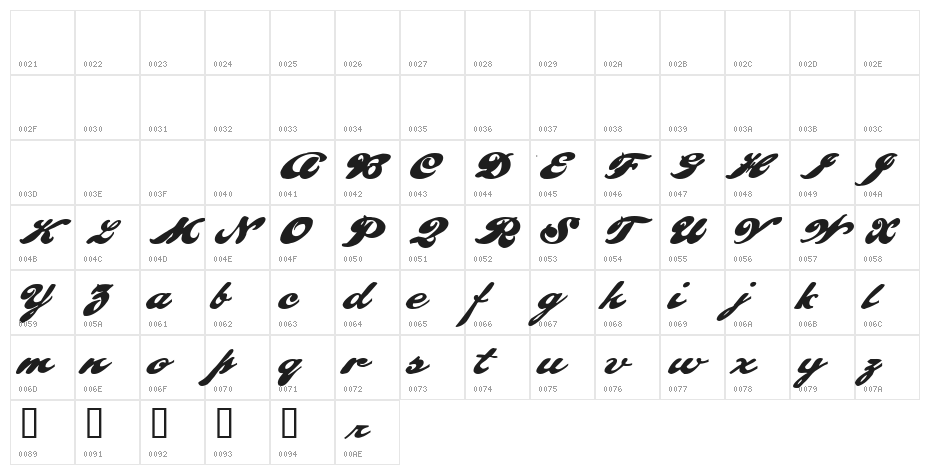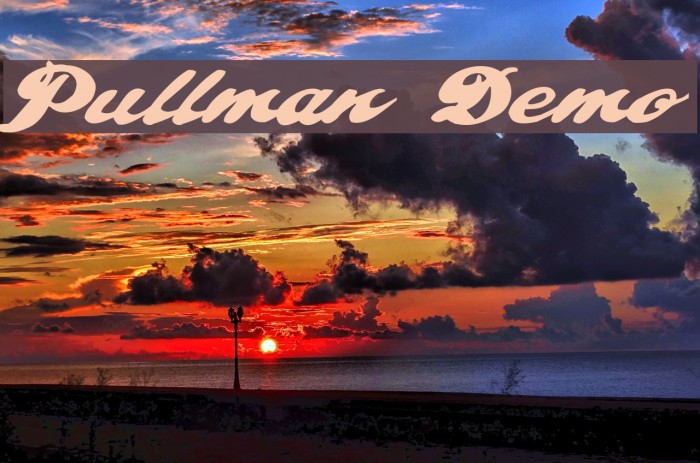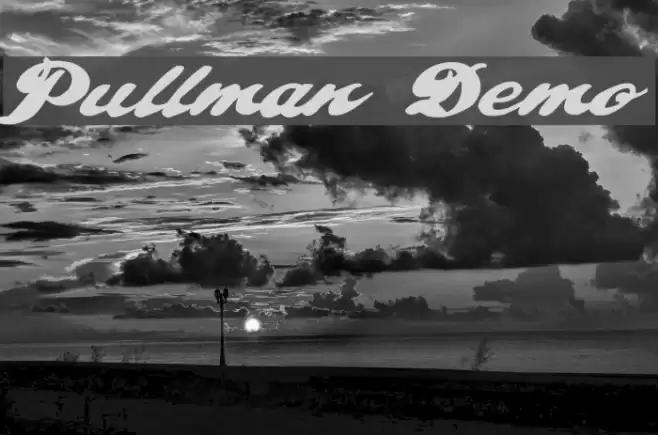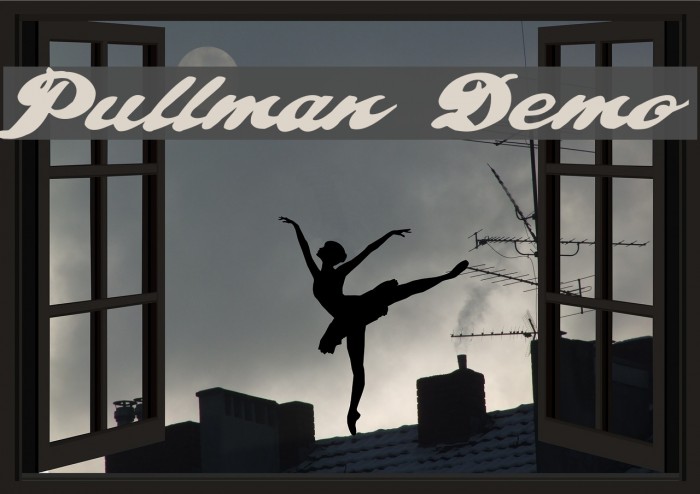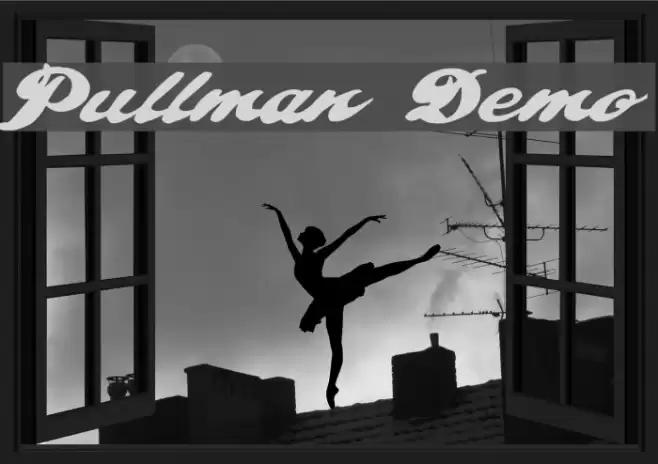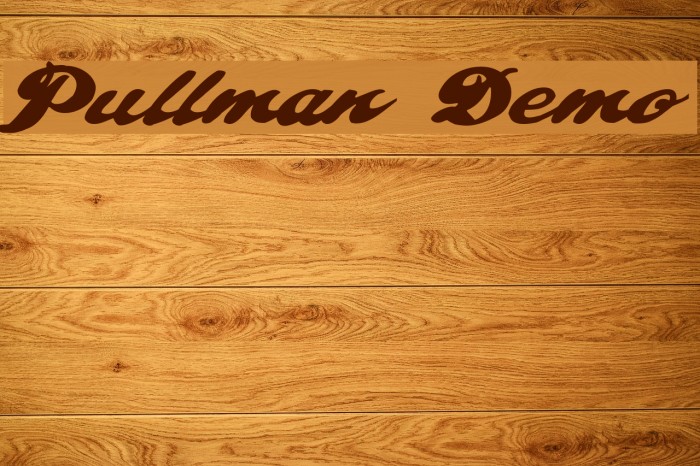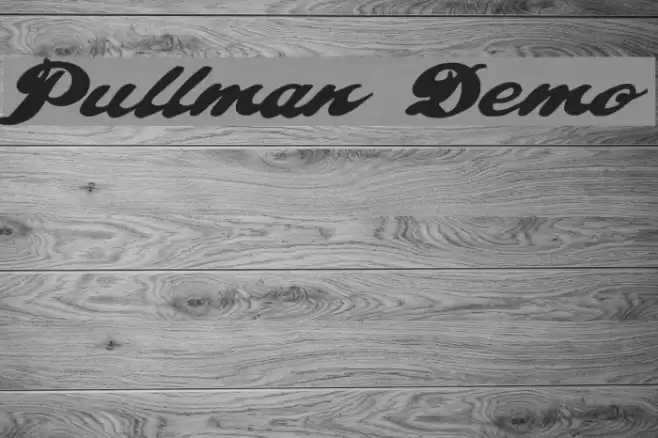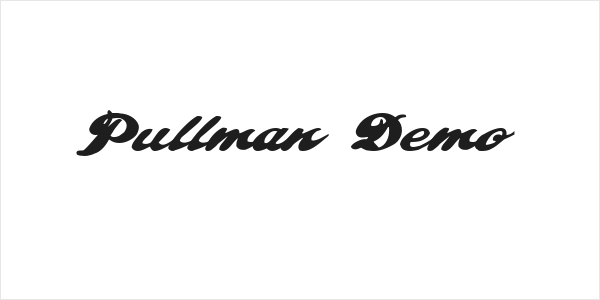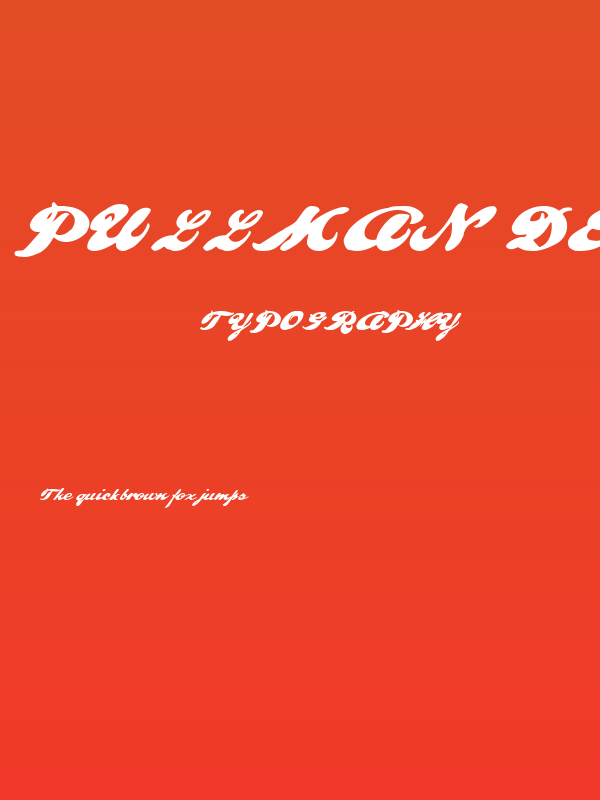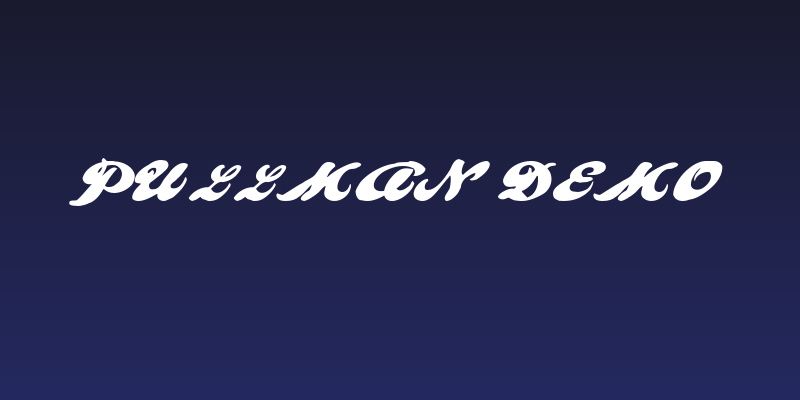
Pullman Demo Font
Pullman Demo Description
This font exudes a bold and dynamic script style, characterized by its flowing, cursive letterforms that convey a sense of elegance and movement. The strokes are thick and consistent, providing a strong visual impact. Each character is intricately designed with smooth curves and sharp edges, creating a harmonious balance between fluidity and structure. The uppercase letters are particularly striking, with their elaborate swirls and loops, while the lowercase letters maintain a more understated yet equally stylish appearance. This font is ideal for projects that require a touch of sophistication and flair.